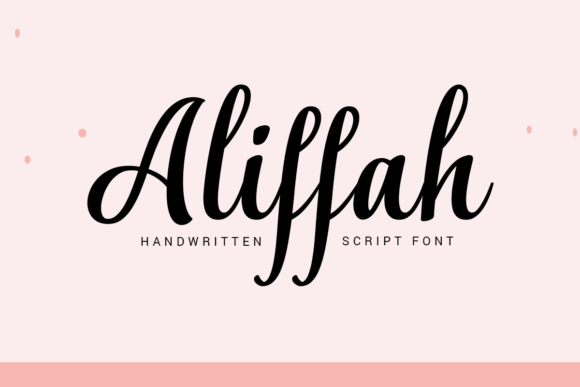
Welcome to the realm of Aliffah Font, an enchanting script that exudes charm, beauty, and a touch of extravagance. Crafted by the skilled hands of fontkong, this font is a masterpiece that will elevate your digital creations to new heights.
Aliffah's captivating curves and delicate strokes evoke a sense of elegance that is unmatched. It is the perfect font to add a touch of sophistication to your modern resume, making it stand out from the crowd. Its versatility extends beyond resumes, though; it is also an ideal choice for creating enchanting greeting cards, wedding invitations, logos, lettering, and t-shirt designs.
With Aliffah Font, your creations will possess a timeless appeal that will captivate your audience. Its intricate details and graceful flow will evoke a sense of wonder and inspiration. Whether you're a seasoned designer or just starting out, Aliffah Font is the perfect tool to unleash your creativity and create stunning visuals that will leave a lasting impression.
But what truly sets Aliffah Font apart is its ability to evoke emotions. With every stroke, it conveys a sense of warmth, charm, and sophistication that will resonate with your audience. It is a font that will not only enhance the aesthetics of your designs but also connect with your readers on a deeper level.